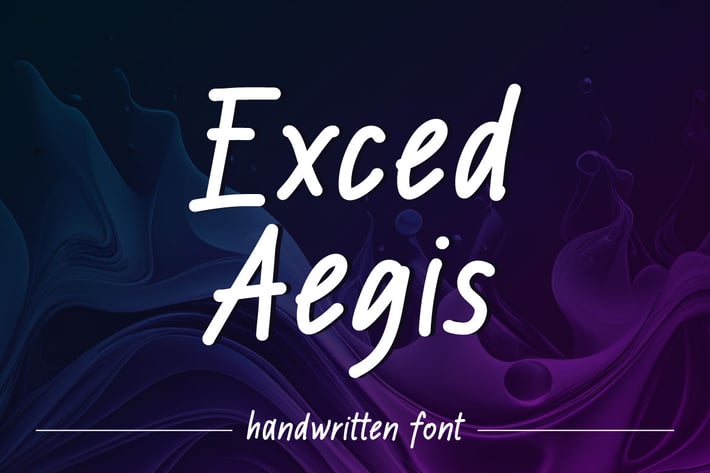
Exced Aegis - Handwritten Font
Hello! Exced Aegis is a minimalist handwritten font.
Exced Aegis can be used in any works such as flyer, book title, advertisement, social media content, logo and many more.